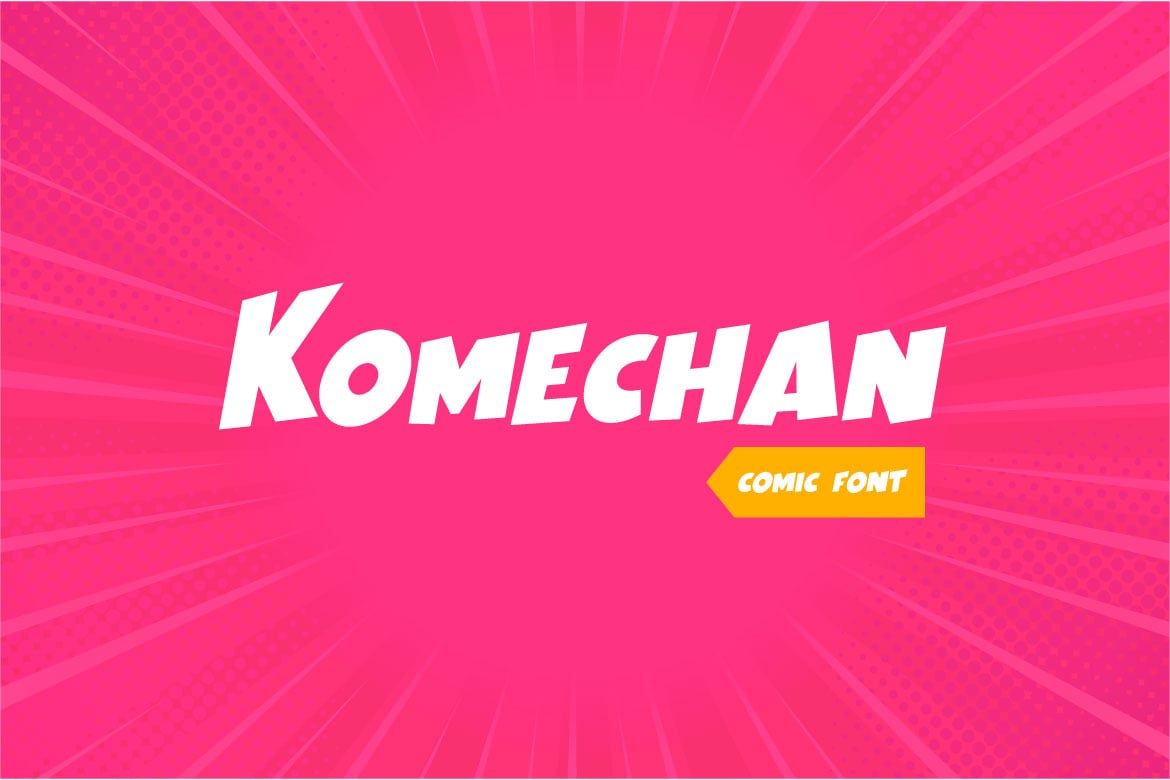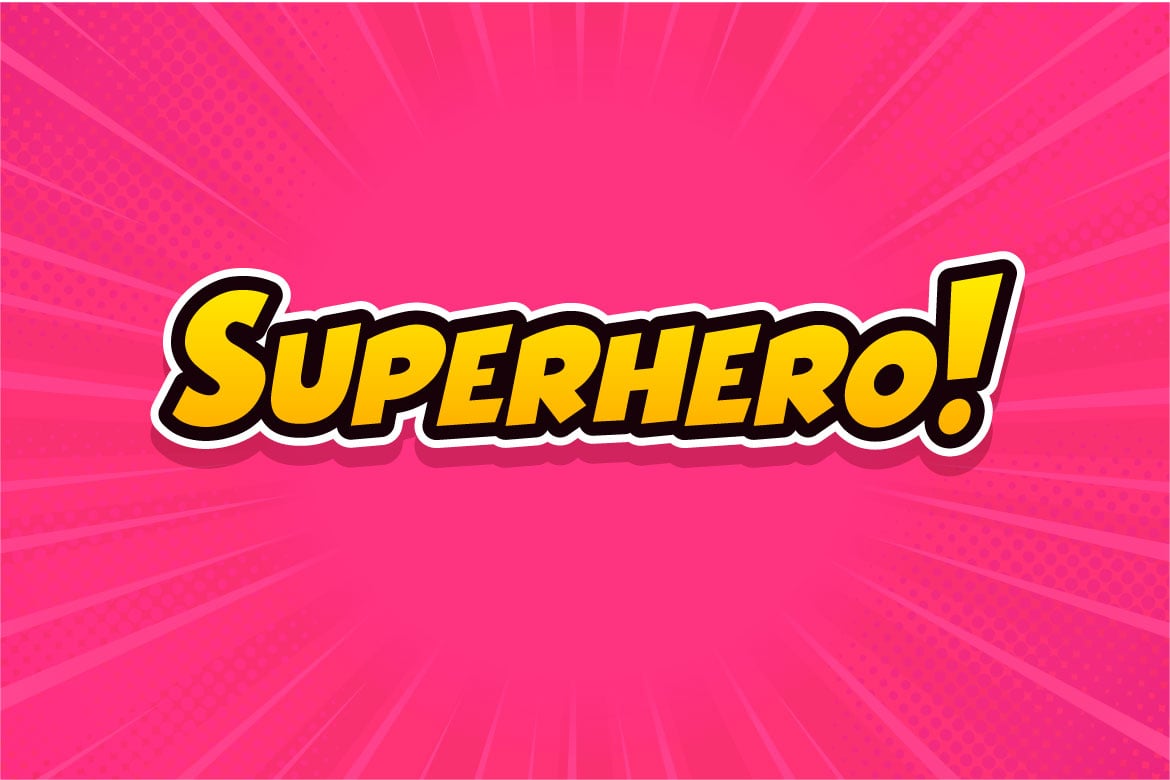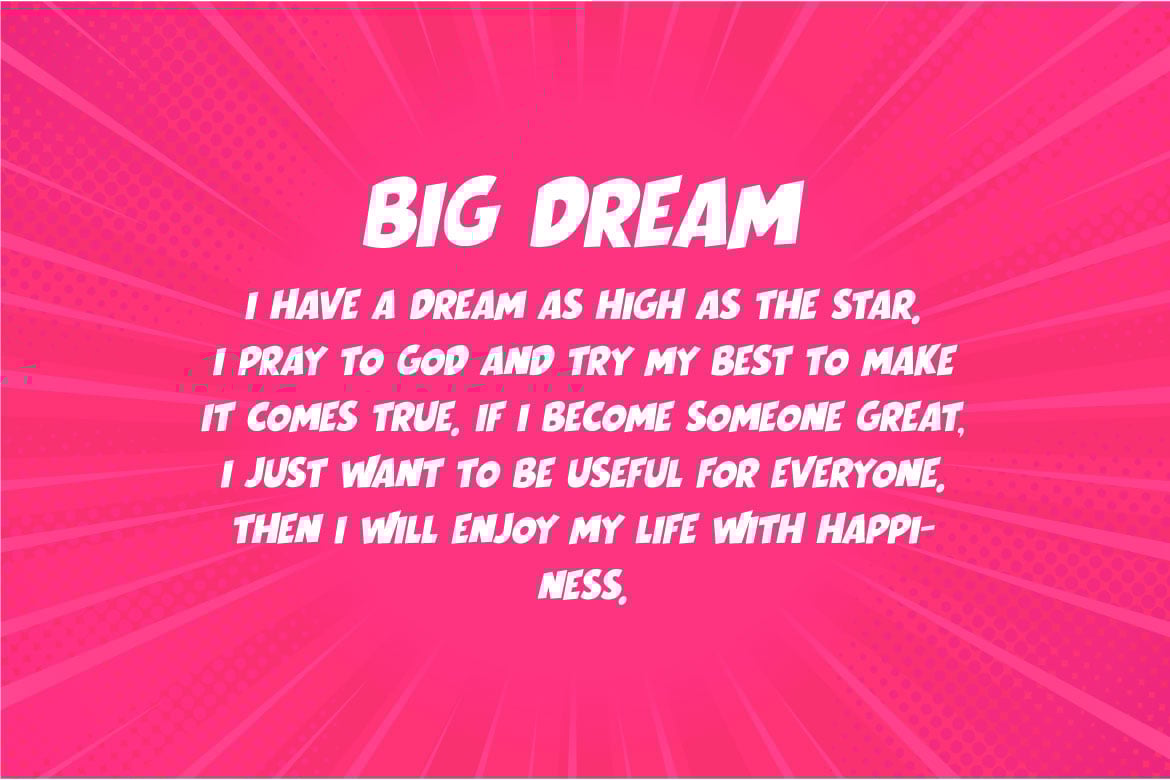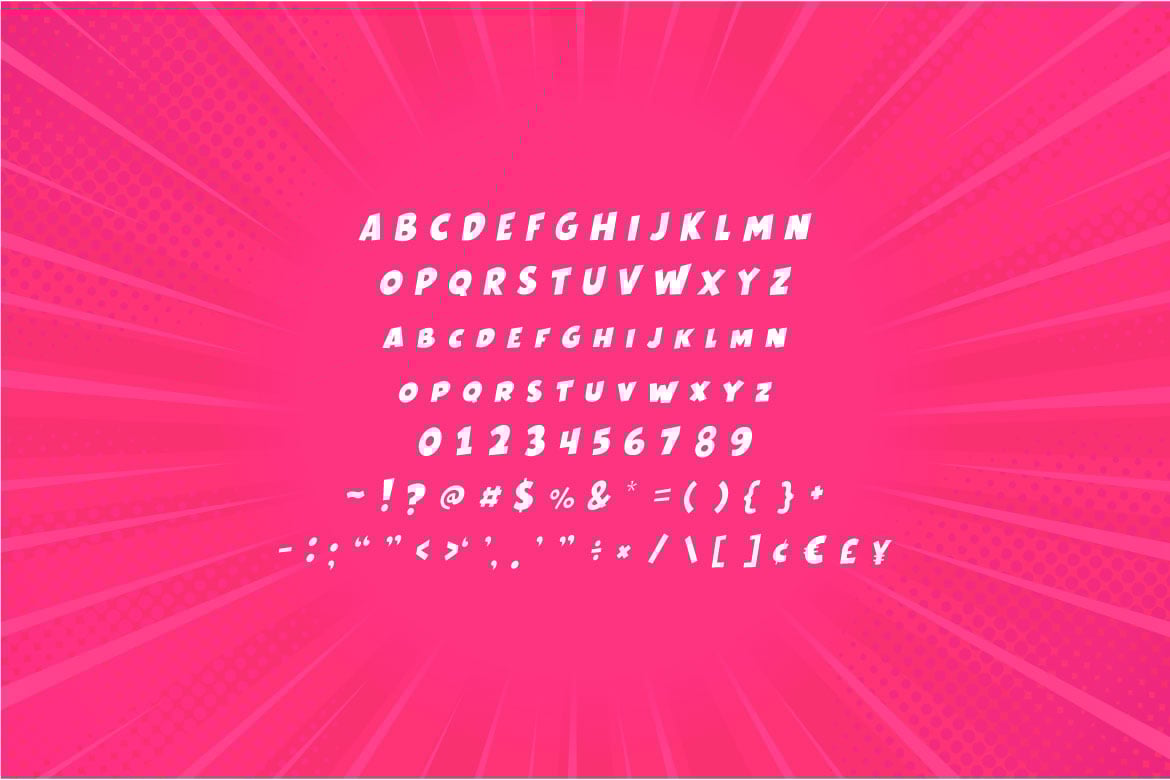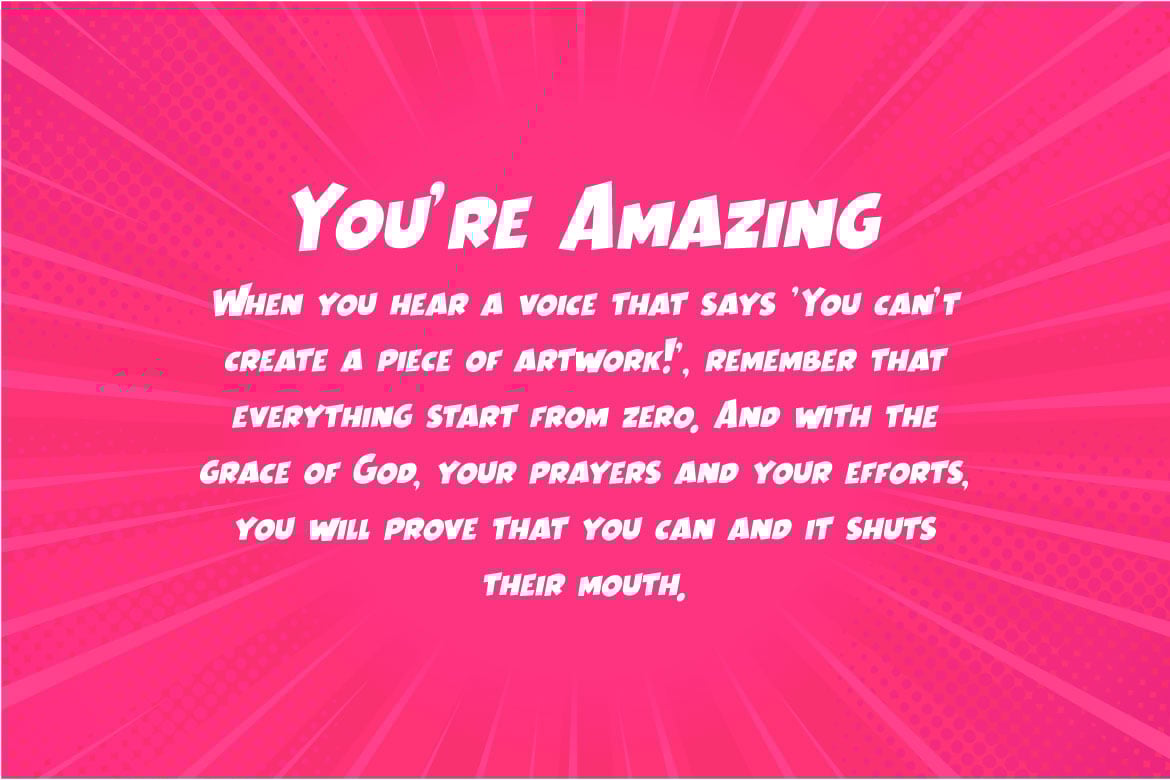
Komechan – Modern Comic Font
Introducing Komechan – Modern Comic Font, a versatile and dynamic typeface that brings a fresh, contemporary twist to classic comic lettering. Perfect for digital and print projects, this font is designed to capture attention and convey a sense of fun and excitement. Ideal for headlines, speech bubbles, captions, logos, and other creative projects that require a bold and engaging font.